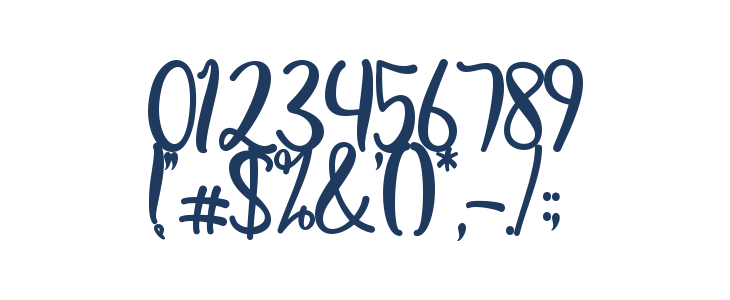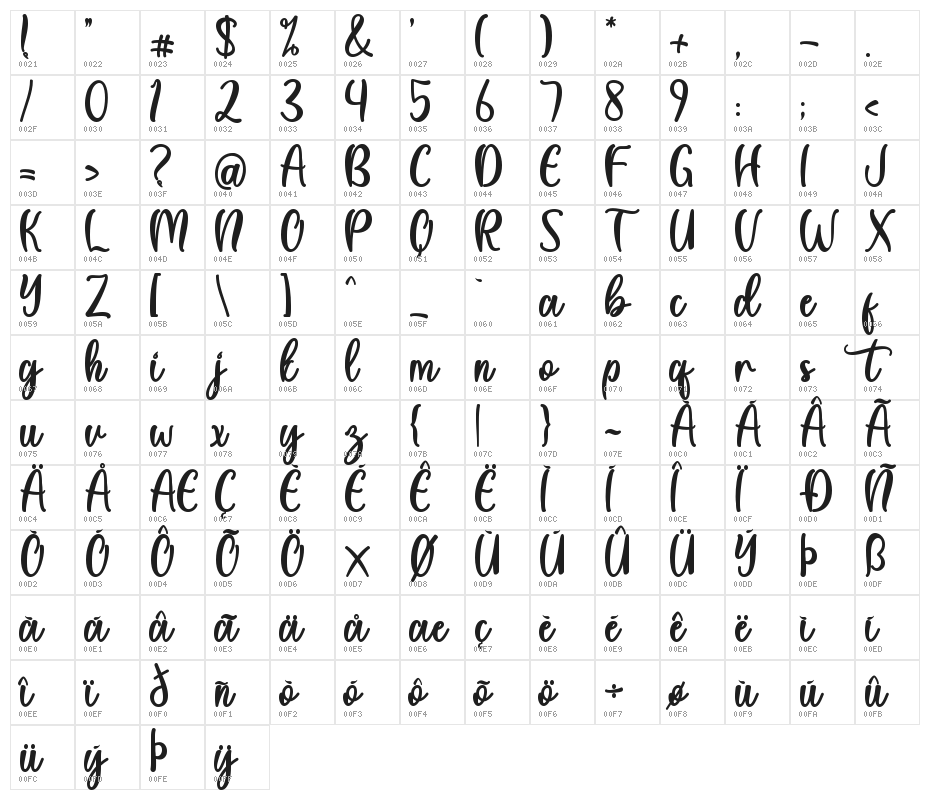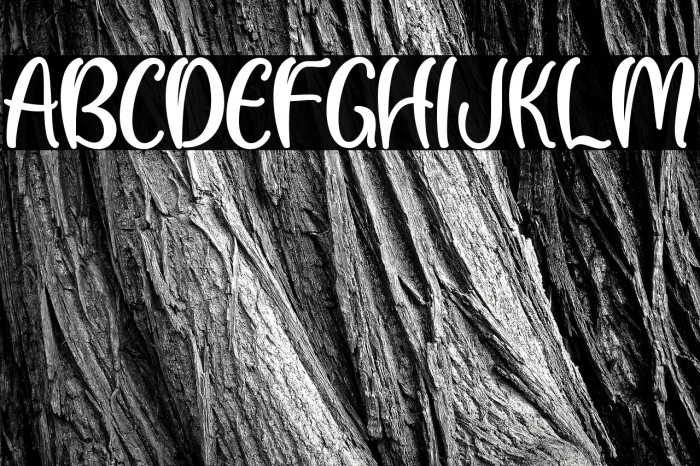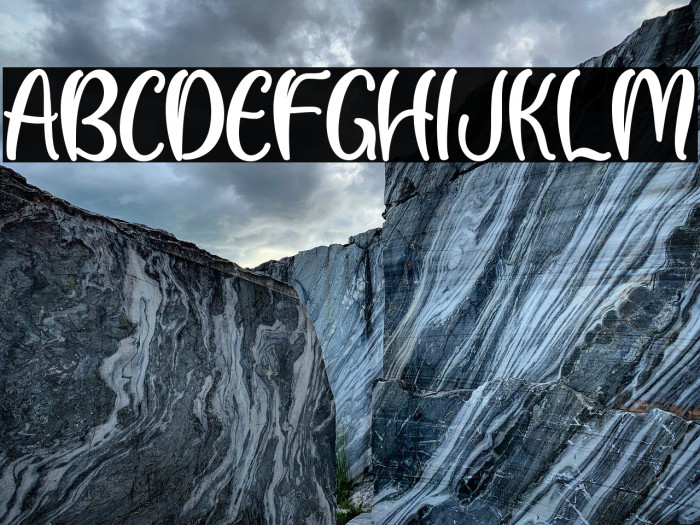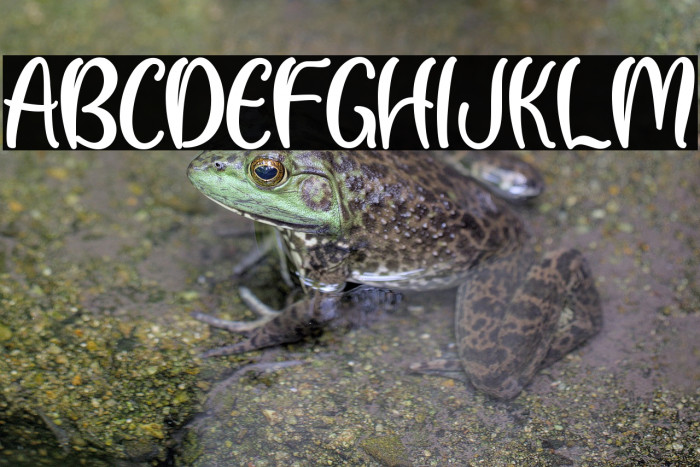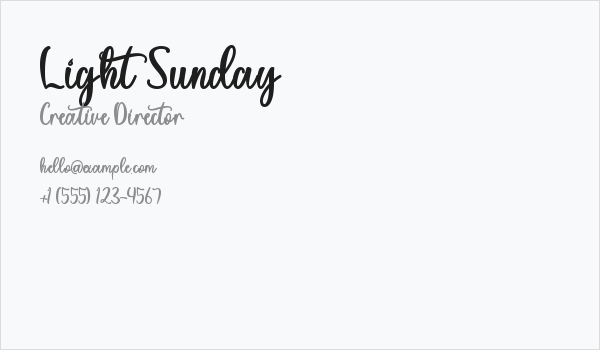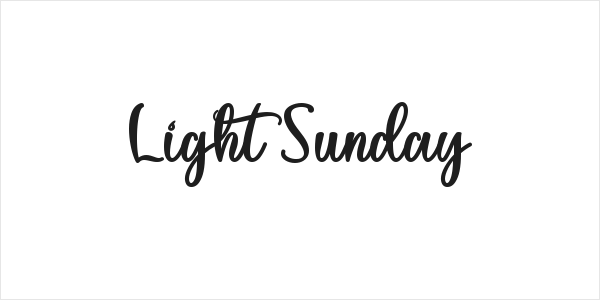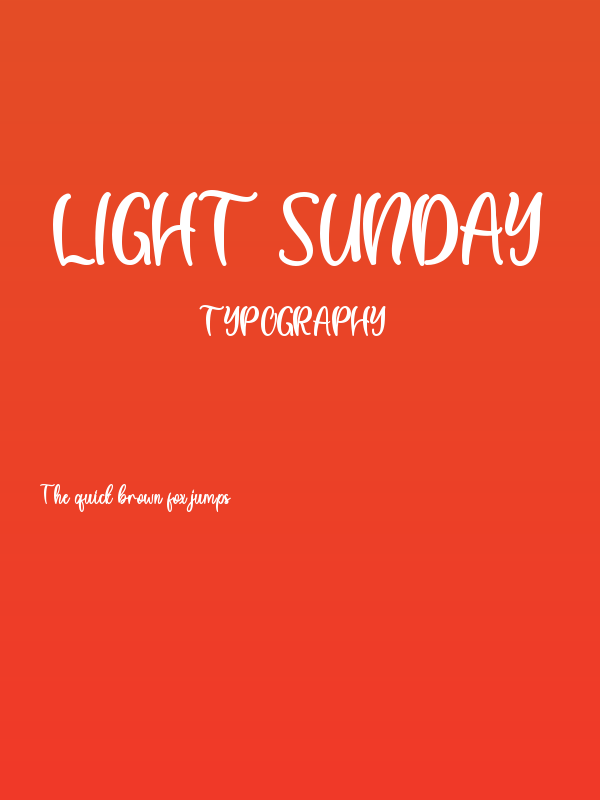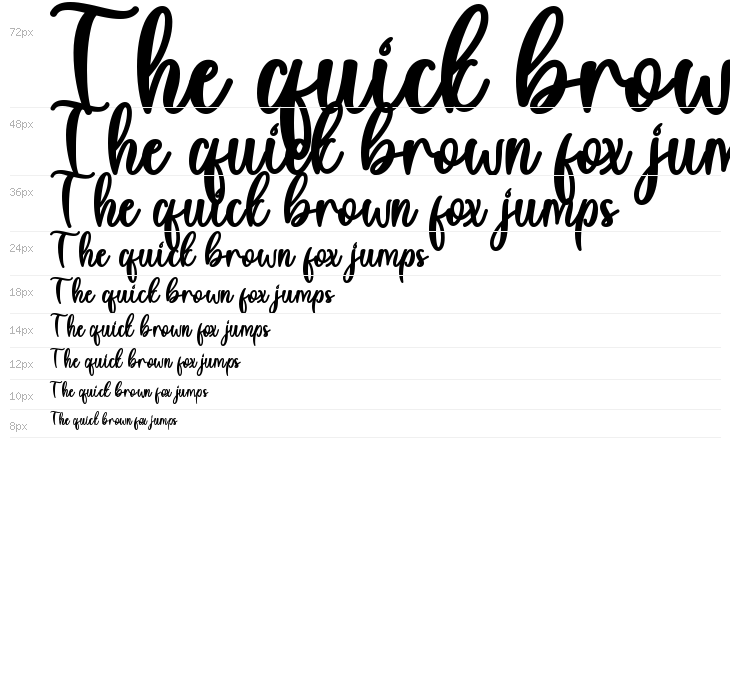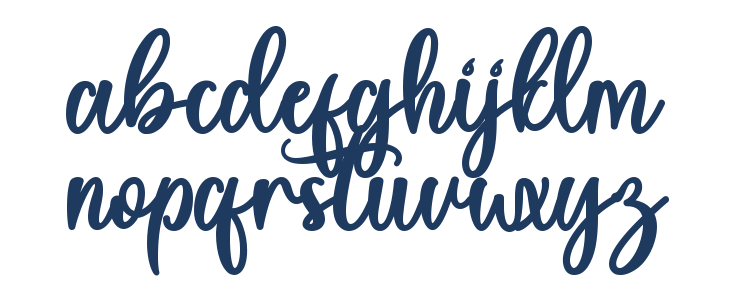
Light Sunday Font
Light Sunday Description
This font exudes a playful and energetic vibe with its bold, flowing script style. The characters are crafted with a smooth, continuous stroke that gives a sense of movement and fluidity. The uppercase letters are tall and slightly narrow, while the lowercase letters have a charming, handwritten quality. The numbers and special characters maintain the same lively style, making them cohesive with the alphabet. This font is perfect for projects that require a personal touch or a sense of whimsy.
A bold, playful script font with a lively, handwritten style from Uncategorized fonts.
- Font: Light Sunday
- Proposed Projects: Ideal for greeting cards, invitations, branding, and social media graphics.
- Use Case: Logos, Headlines, Invitations